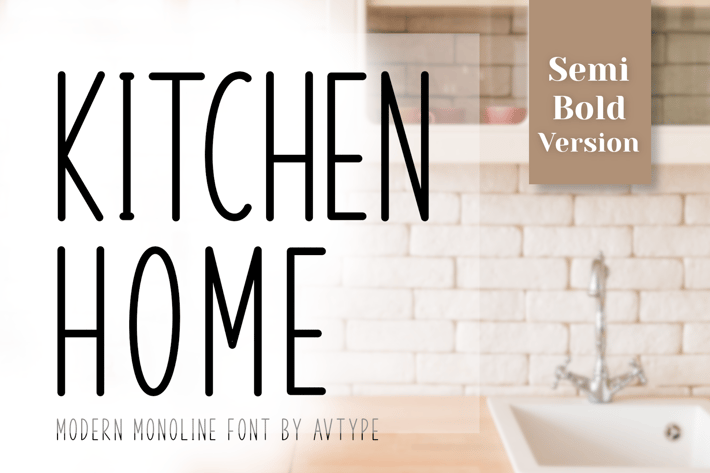
Kitchen Home - Monoline font
Kitchen Home is a monoline sans serif font designed with simplicity and clarity in mind. Its consistent line weight and sleek design make it perfect for clean headers, product branding, and minimalist layout compositions.
Whether you're crafting modern packaging, home goods branding, or editorial layouts, Kitchen Home delivers a professional and stylish look.
Key Features:
- Sleek monoline sans serif style
- Ideal for headers and product branding
- Clean and minimalist aesthetic
- Uppercase & lowercase characters
Keep your designs elegant and structured with Kitchen Home.